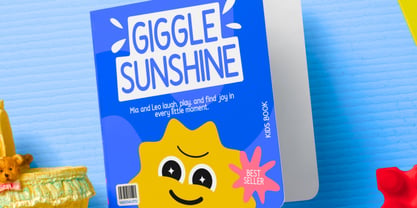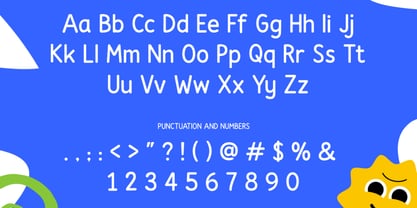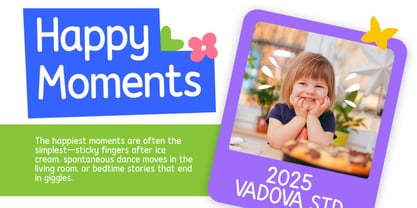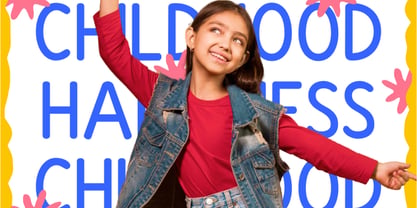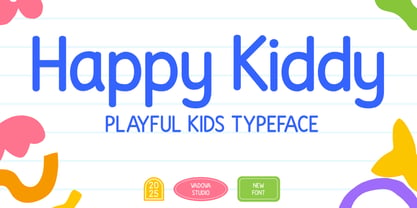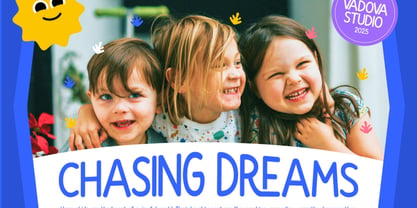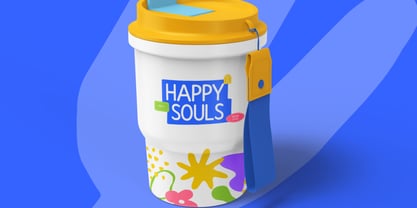
Happy Kiddy
por Vadova Std
La familia tipográfica Happy Kiddy fue diseñada por y publicada por Vadova Std. Happy Kiddy contiene 1 estilos. Más información sobre esta familia
Happy Kiddy is a cheerful and playful kids typeface designed to bring fun and friendliness into any creative project. Featuring rounded letterforms, clear readability, and full uppercase and lowercase sets, this font is perfect for educational materials, school posters, children’s books, and playful branding. Happy Kiddy is the perfect font for designers working on child-focused visuals, early education content, and colorful digital products. It works great in kids' storybooks, learning posters, toy packaging, classroom decor, birthday invitations, and apps for young users